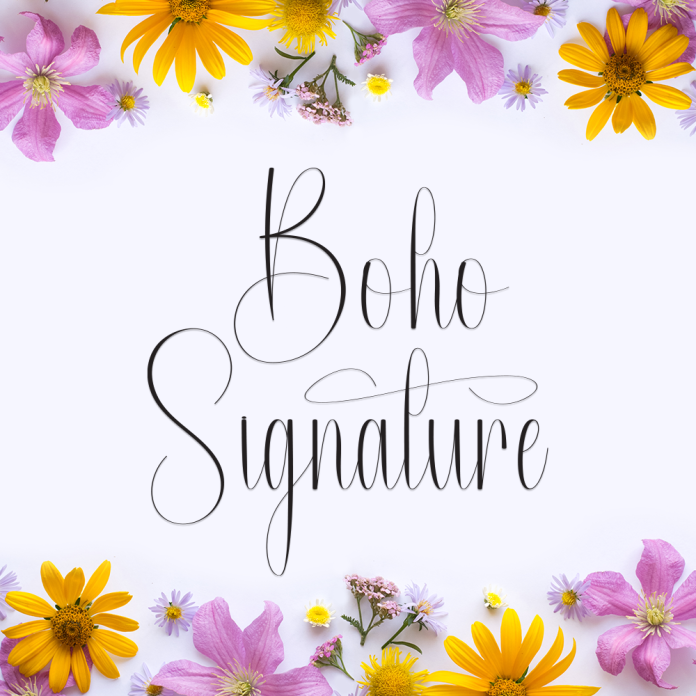
Boho Signature is a modern and stylish handwriting font with a free-spirited bohemian vibe. Its flowing strokes and artistic curves make it perfect for designs that want to feel personal, trendy, and effortlessly chic.
Elegant handwritten signature style
Perfect for logos, branding, and social media posts
Smooth curves with a natural ink flow
Includes uppercase, lowercase, numbers, and punctuation
Multilingual character support
Bring a touch of modern bohemian elegance to your designs with Boho Signature.